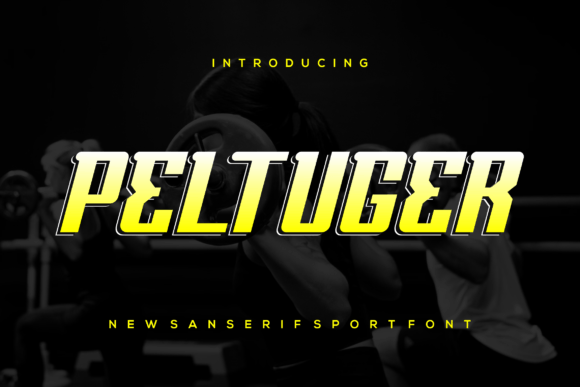
**Introducing Peltuger Font: The Ultimate Font for Tech Documents**
In a world obsessed with technology, clarity and precision are paramount. Introducing Peltuger Font – the cutting-edge display font meticulously crafted to elevate your tech documents to unprecedented heights.
Peltuger Font is not just a font; it's a game-changer for those seeking to communicate technical information with unmatched clarity and style. Its clean lines, sharp angles, and meticulously balanced letterforms create an aesthetic that exudes professionalism and sophistication.
**Precision and Clarity at Your Fingertips**
Peltuger Font is the epitome of precision. Each character is meticulously designed to ensure optimal readability, even in the most complex technical documents. Its crisp edges and generous spacing eliminate ambiguity, allowing your audience to grasp every detail effortlessly.
**Modern and Eye-Catching**
While precision is essential, so too is visual appeal. Peltuger Font strikes the perfect balance, combining a modern and eye-catching aesthetic with unwavering functionality. Its unique letterforms and subtle curves add a touch of elegance, ensuring your documents stand out from the mundane and capture attention.
**Endless Creative Possibilities**
Peltuger Font is not confined to the realm of technical documents. Its versatility extends to a myriad of creative applications. Design captivating posters, craft impactful presentations, or create unique logos – the possibilities are boundless. Let Peltuger Font ignite your imagination and transform your creative visions into captivating realities.
**Unleash Your Inner Tech Master**
If you're a tech wizard or an aspiring communicator in the digital age, Peltuger Font is your secret weapon. With this exceptional font at your disposal, you'll command attention, convey complex ideas with clarity, and leave a lasting impression on your audience.